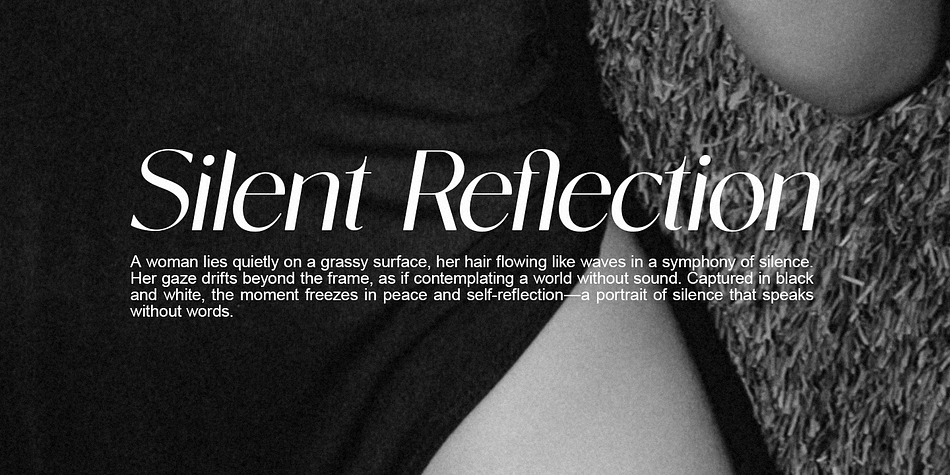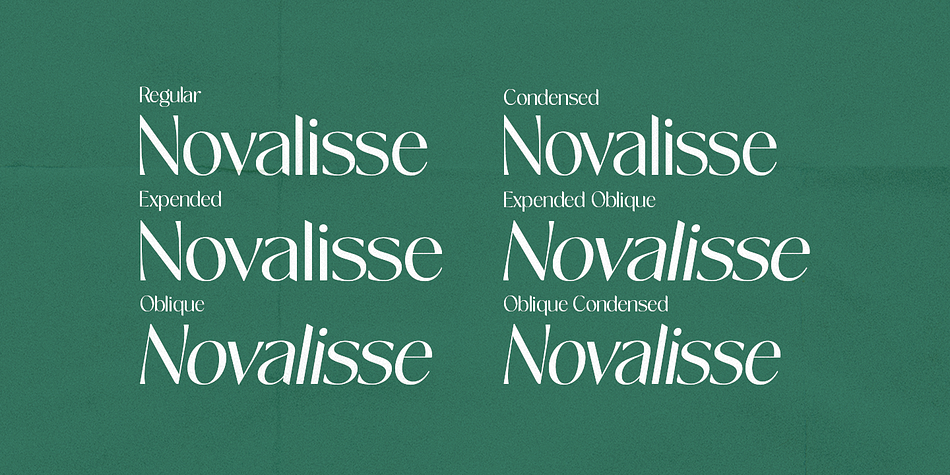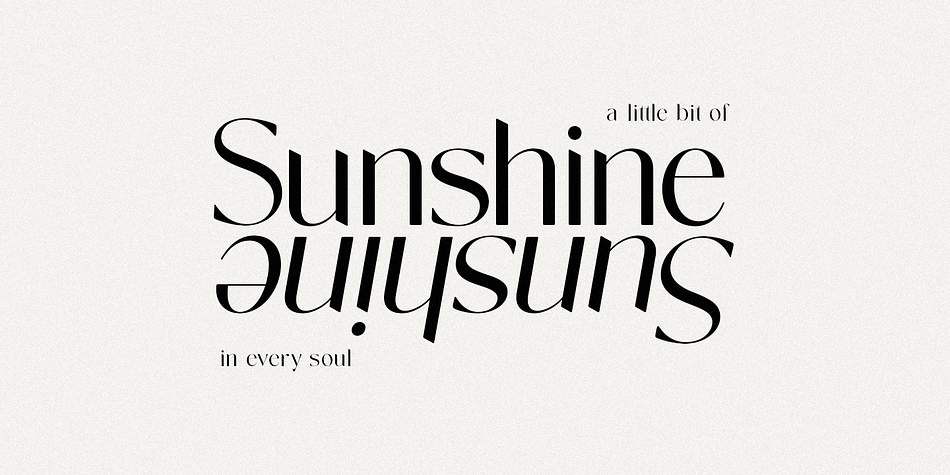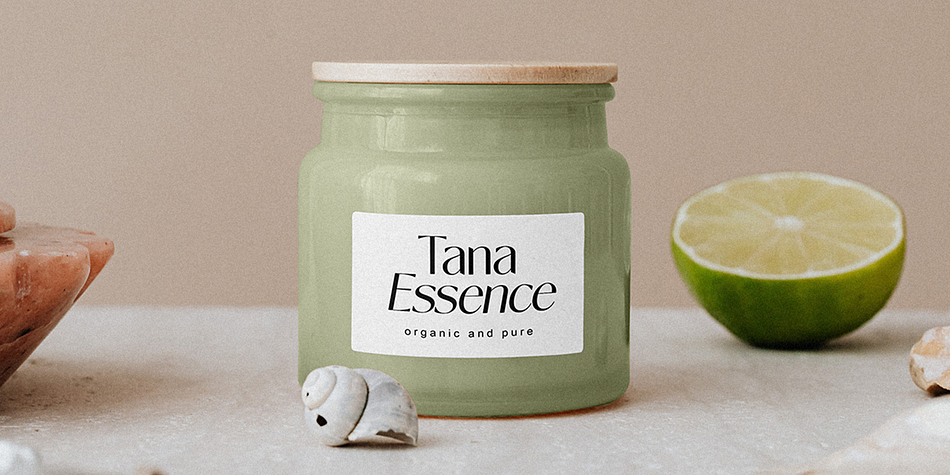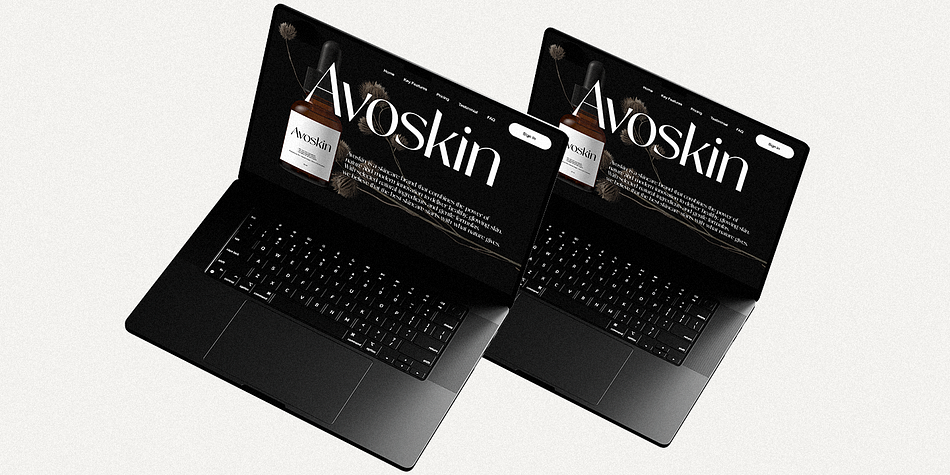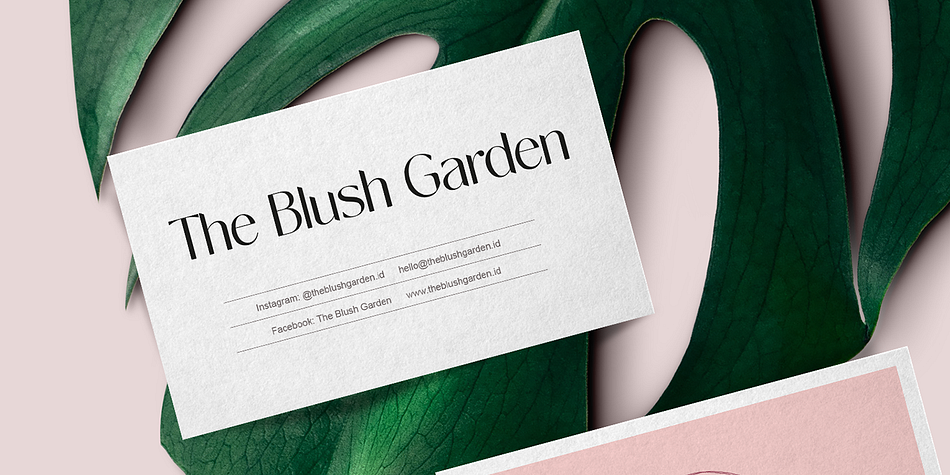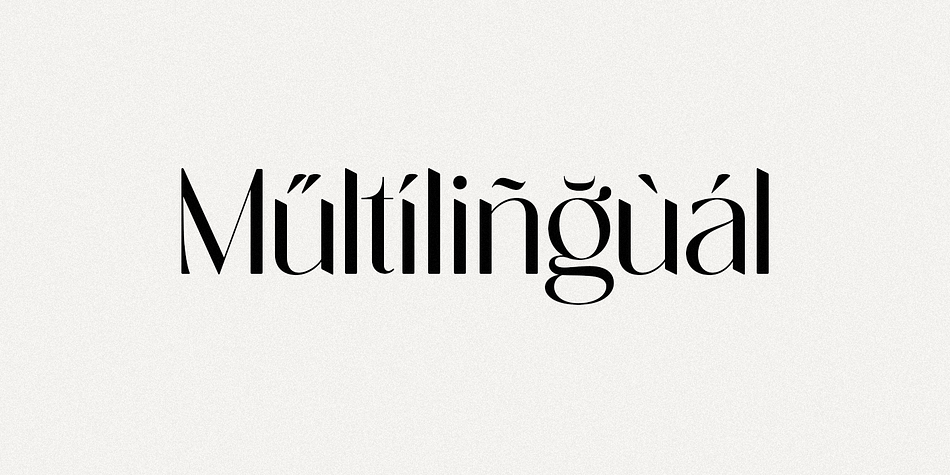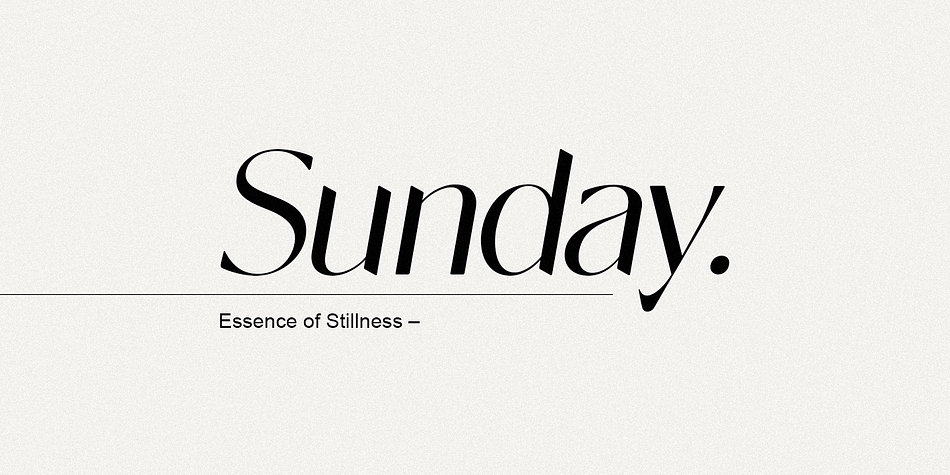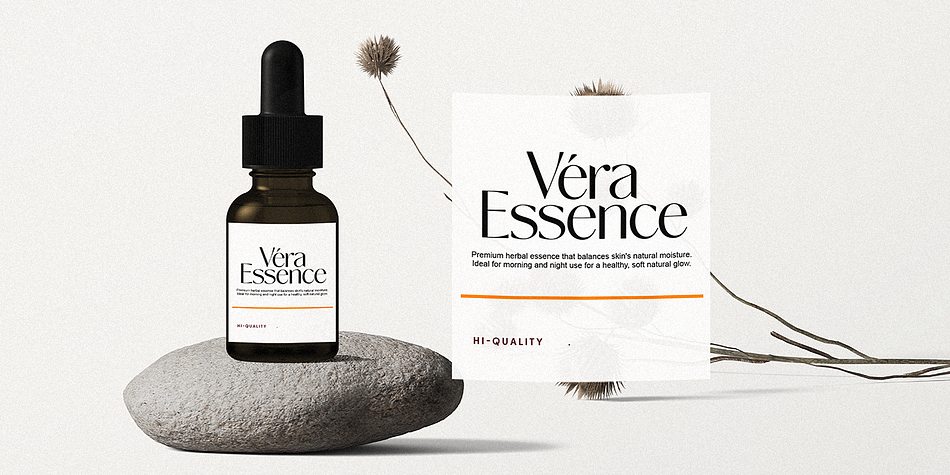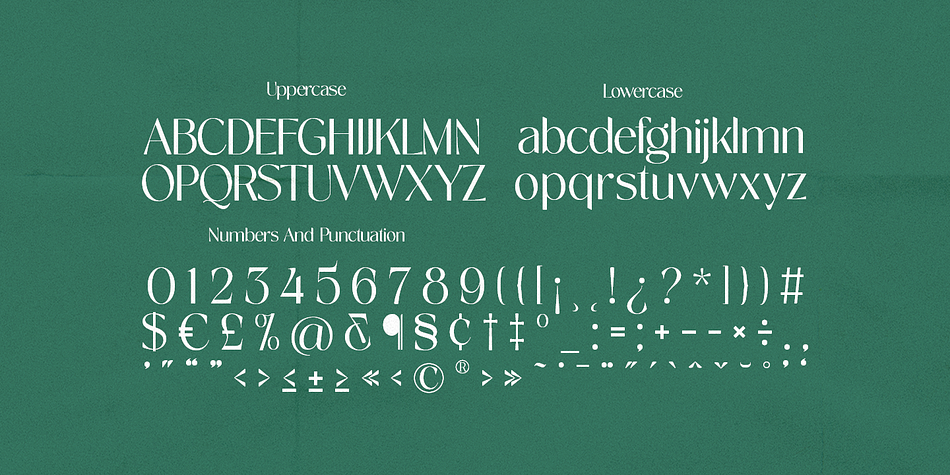
Introducing Novalisse: A San Serif Typeface for a Modern Aesthetic
Experience timeless elegance with Novalisse, a carefully crafted san serif typeface that blends classic charm with contemporary style. Its high-contrast strokes and graceful curves create a visual symphony that captivates the eye and enhances any design. Whether you’re creating a sophisticated editorial layout, a striking brand identity, or an engaging website, Novalisse versatility and refined beauty will make your work stand out.
Immerse yourself in the world of Novalisse, where each character has been carefully designed to exude strength and refinement. From its carefully sculpted serifs to its perfectly balanced proportions, this typeface is a testament to the timeless power of classic typography. Its true italics, with their unique personality, add a touch of dynamic movement and visual interest, allowing you to create designs that are both captivating and easy to read.
Key Features:
Effortless Elegance Novalisse’s clean lines and balanced proportions exude classic charm, making it ideal for a variety of applications.
Elegant Ligatures Add a touch of personality with a curated collection of ligatures, creating unique and eye-catching letter combinations.
OpenType Features Take full control of your typography with advanced OpenType features, including ligatures.
Multilingual Support With support for over 90 languages, Novalisse ensures your message reaches a global audience.
True Oblique This isn’t just an italic version—it’s carefully designed to align with the upright, creating a cohesive, elegant rhythm.
Perfect for:
Editorial Design: Magazines, newspapers, books – Novalisse legibility and elegance make it perfect for long-form text.
Branding & Logos: Create a sophisticated and memorable brand identity with Novalisse’s timeless appeal.
Web Design: Novalisse’s clean lines and high contrast ensure optimal readability on screens of all sizes.
Packaging & Print: Enhance your product packaging and printed materials with a touch of sophisticated luxury.
Invitations & Stationery: Make a lasting impression with Novalisse elegant presence on invitations, greeting cards, and other stationery.